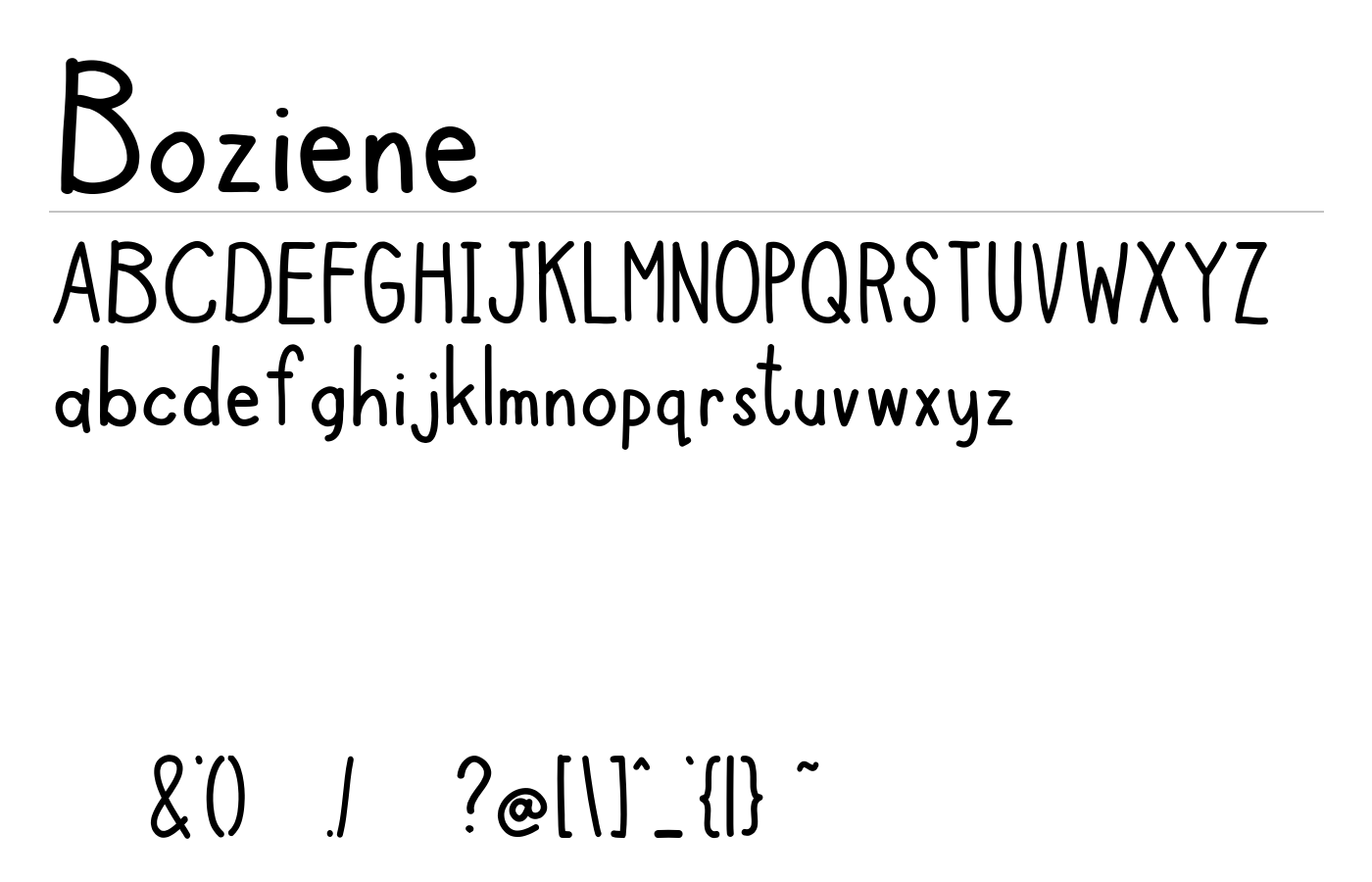
Boziene is a playful and friendly sans serif font with a hand-drawn feel, characterized by its tall, narrow letterforms and slight irregularities that add charm and approachability. Its light weight and open spacing make it ideal for casual designs, children's books, and creative projects looking for a warm, informal touch. This font works well in headlines, logos, and any context where a personable and inviting vibe is desired.
Boziene Font
About Boziene Font
| Designer | Julia Guinto |